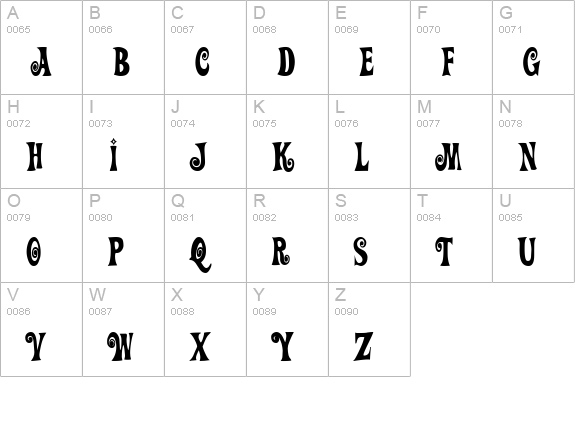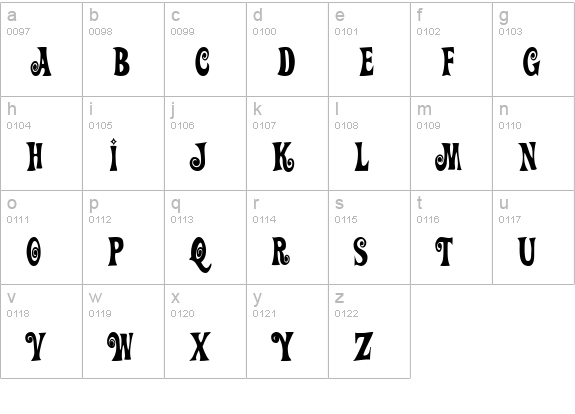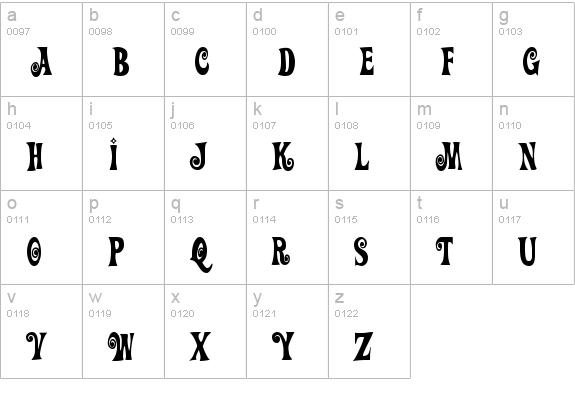
ActionIs font is a dynamic and bold typeface that exudes energy and power. Its strong and sharp lines give it a sense of action and movement, making it perfect for any design project that needs a touch of excitement. Whether you're creating a poster for a thrilling action movie or designing a sports-related logo, ActionIs font will make your text stand out and grab attention. What makes ActionIs font even more appealing is that it is available for free download at FontsMarket.com. That's right, you don't need to spend a dime to add this impressive font to your collection. With just a few clicks, you can have access to its unique character set, including uppercase and lowercase letters, numbers, and punctuation marks. Not only is ActionIs font visually striking, but it is also highly versatile. Its modern and edgy aesthetic makes it suitable for a wide range of design projects, from digital graphics to print materials. Whether you're working on a website, flyer, or even a t-shirt design, ActionIs font will bring a sense of energy and excitement to your work. With ActionIs font, you can easily create eye-catching headlines and titles that will captivate your audience. Its bold and powerful appearance ensures that your message is conveyed with impact and intensity. Additionally, the font's legibility ensures that your text remains clear and readable, even at smaller sizes. So, if you're looking for a font that combines strength, style, and versatility, look no further than ActionIs font. Download it for free at FontsMarket.com and unleash its power in your designs. With ActionIs font, you'll be able to create visually stunning and impactful designs that leave a lasting impression.